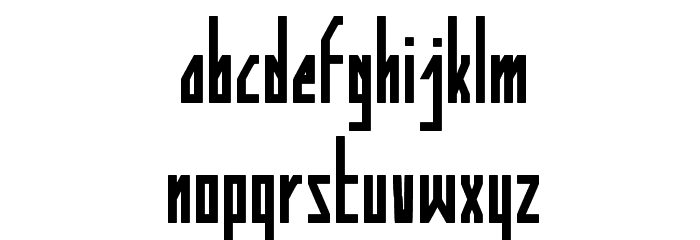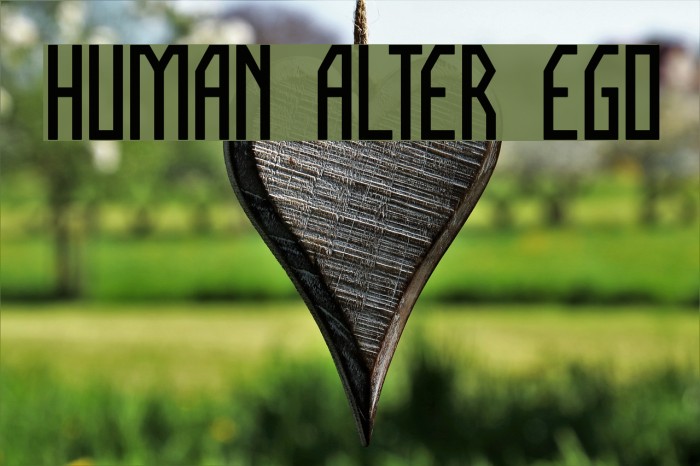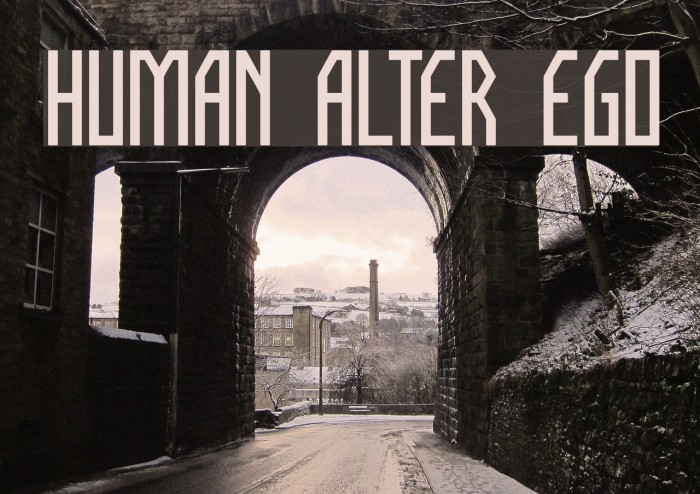
HUMAN ALTER EGO Font
This font exhibits a bold and geometric design, characterized by its angular and sharp edges. The uppercase letters are tall and narrow, giving a condensed appearance, while the lowercase letters maintain a consistent style with slightly more rounded forms. The numerals are distinct and align with the overall geometric theme, providing a cohesive look. Special characters are crafted with the same attention to angular detail, ensuring uniformity across the character set. This font's unique style makes it stand out, suitable for projects that require a modern and edgy aesthetic.
A bold, geometric font with angular and sharp edges, ideal for modern designs.
- Proposed Projects: This font is perfect for branding, posters, album covers, and any project that requires a modern, edgy look.